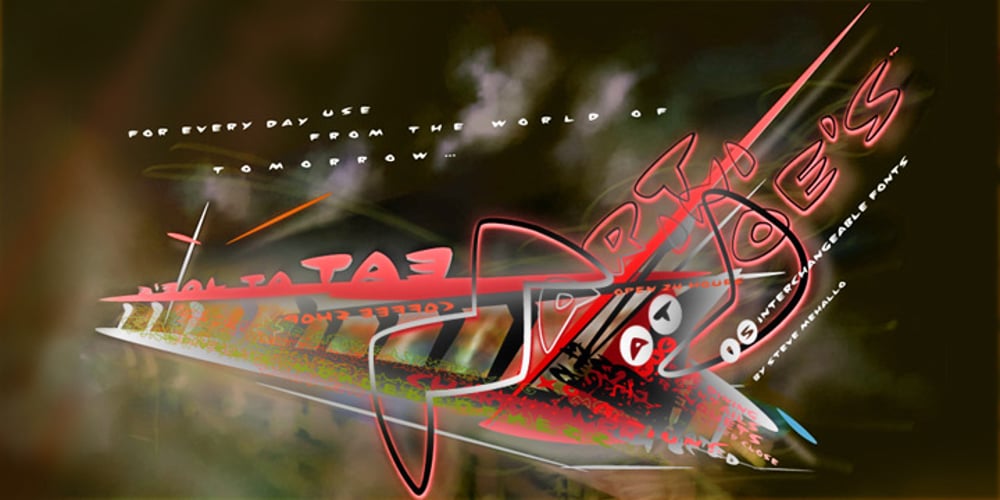
Martini at Joe’s
Martini at Joe’s font
Martini at Joe’s Font Family was designed by Steve Mehallo and published by steve mehallo. Martini at Joe’s contains 15 styles and family package options. Googie Architecture, also known as “Midcentury Coffee Shop Modern,” was born in California during the Atomic Age. Martini at Joe’s is based on lettering from several historic Googie sources – many of which no longer exist. The futuristic Martini at Joe’s collection was named for Northern California’s famous Italian-themed “Joe’s” restaurants, some of which are still serving up large portions of charbroiled beef steak, canned buttered veggies and pretty decent martinis. Martini at Joe’s contains many fabulous typographic extras – and is available in single font packages or as a 15 font interchangeable Megaset (with “italic-esque” obliques and “retro obliques”). Martini at Joe’s is perfect for use as commercial signage, on the menu for your coffee shop, supper club, tiki bar, fish grotto, smorgy, space port or destination casino. It also holds its own in any vintage store, on greeting cards, t-shirts, hi-brow gallery announcements, product skins, your ‘zine masthead, on the faceplate of your futuristic microwave oven, tv dinner packaging, at millionaire’s conferences or even embellishing the fuselage of your latest jet airline venture. Martini at Joe’s: there’s no better way to say, “Hold the olive, I’m having a moment.”